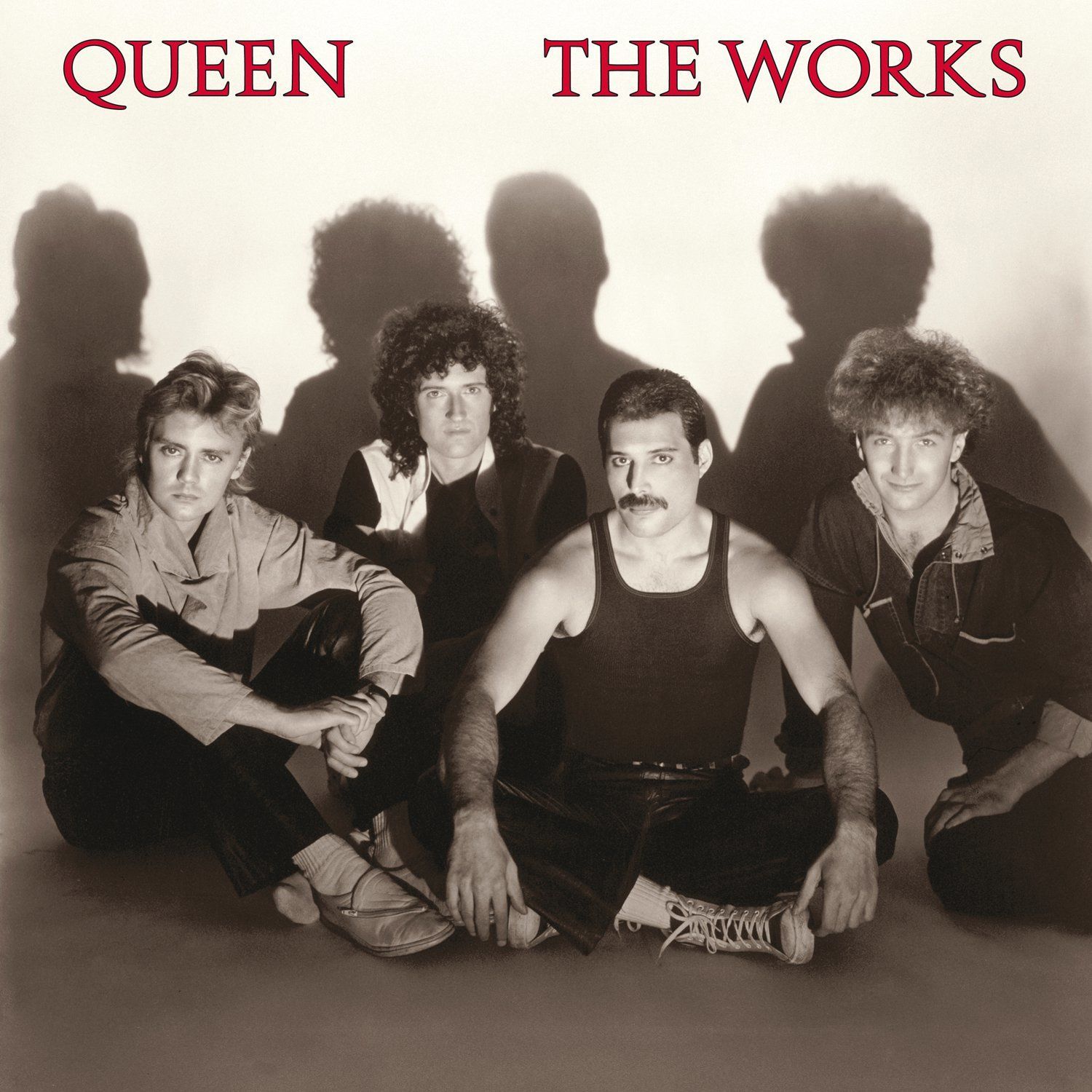
The Works (Queen) Font
Fonts in UseThe Works is the eleventh studio album by the British rock band Queen, released in 1984. It features popular hits such as "Radio Ga Ga," "I Want to Break Free," and "Hammer to Fall."
The album cover's Roman typeface bears a resemblance to digital fonts such as CastCraft's Amanda Inline or ITC's Augustea Open, both of which are revivals of the Nebiolo typeface known as Augustea Filettato.